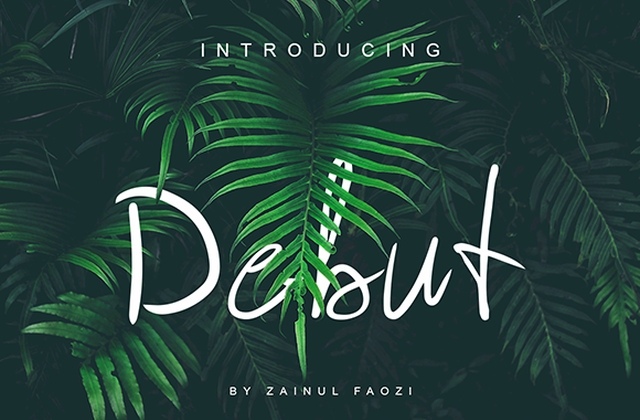
Debut Font
Debut Font is perfect for various design applications including startup company branding, product launch campaigns, grand opening event materials, new business announcements, fresh brand identities, inaugural event promotions, first impression marketing materials, emerging artist portfolios, debut album covers, and innovative company introductions. This dynamic typeface excels in projects requiring fresh energy and memorable first impressions that captures the excitement and potential of new beginnings and breakthrough moments.
What makes Debut Font so exciting is its perfect embodiment of fresh beginnings and breakthrough energy through letterforms that suggest the confidence and anticipation of making a powerful first impression. The font features clean contemporary construction that communicates professionalism and innovation, dynamic proportions that create visual momentum and forward movement, and distinctive character details that reflect the careful preparation and bold confidence required for successful debuts. Its distinctive fresh character and debut appeal make it perfect for new ventures seeking to communicate innovation, potential, and the kind of memorable presence that ensures successful launches and lasting first impressions.
Debut Font family includes multiple contemporary weights and launch-inspired variations that enhance its versatility for different debut applications. Each style maintains the font's signature fresh character while providing options for various launch design approaches. The family also features debut-themed decorative elements, success symbols, and breakthrough ornaments that can be combined with the letterforms to create cohesive new beginning design systems.
Whether you're developing startup brands, launch campaigns, or debut communications, Debut Font Free Download provides dynamic typography that creates memorable first impressions and celebrates the transformative power of new beginnings and breakthrough moments. This typeface transforms ordinary communications into compelling debut statements that promise innovation, success, and exciting new possibilities. The font's fresh appeal makes it particularly effective for startup companies, product launches, and emerging brands targeting audiences who appreciate innovation and are excited about discovering new possibilities.
Debut Font stands out by delivering authentic breakthrough energy that feels genuinely innovative rather than artificially trendy or superficially modern. Its carefully designed contemporary proportions and debut details ensure that designs feel authentically connected to successful launch traditions and breakthrough achievement. From startup branding to product launch campaigns, this font provides designers with tools to create communications that celebrate new beginnings and inspire confidence in debut success through dynamic, breakthrough-inspired typography that makes unforgettable first impressions.